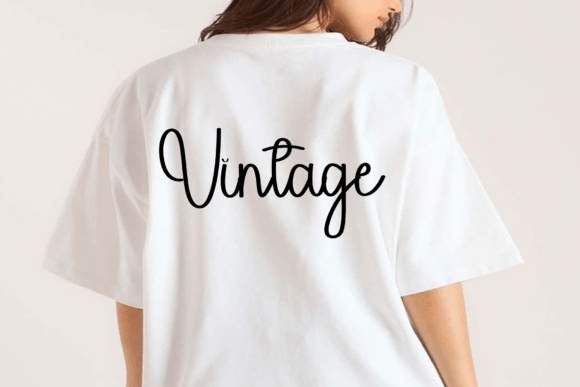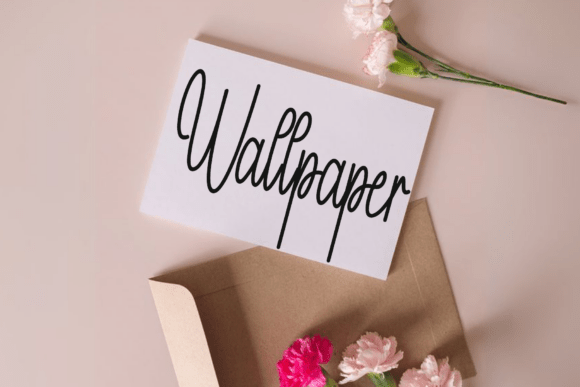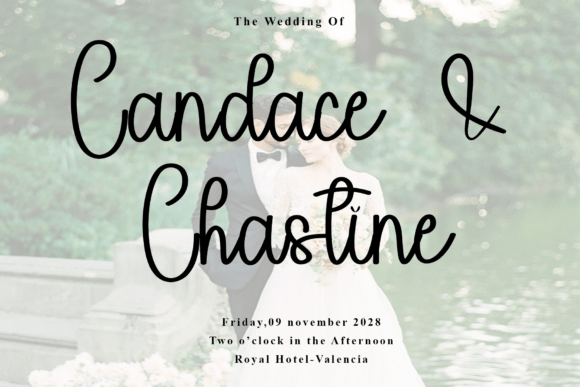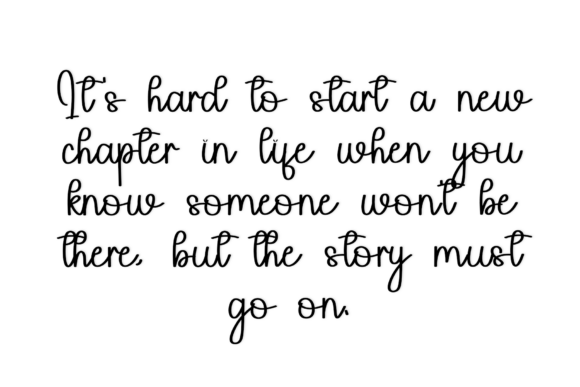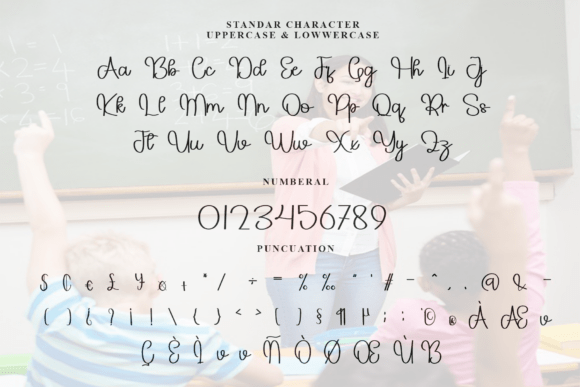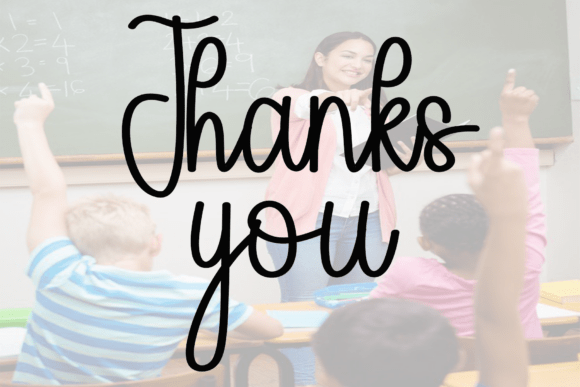
Discover the Charm of Beaching Font: Elevate Your Designs with a Personal Touch
In the world of typography, fonts play a crucial role in conveying the tone and personality of a design. If you’re looking for a font that exudes warmth, approachability, and a touch of casual elegance, look no further than Beaching Font. This beautiful, handwritten font is perfect for designers and crafters seeking to add a personal and friendly touch to their projects.
The Essence of Beaching Font
Beaching Font is a casual, handwritten typeface that embodies the spirit of authentic handwriting with a modern twist. Its smooth strokes, natural curves, and easy-flowing letterforms create a sense of effortless style, making it ideal for a wide range of design applications. Whether you’re working on quotes, invitations, branding, or social media posts, Beaching Font is sure to bring a touch of warmth and personality to your designs.
Key Features of Beaching Font
- Smooth Strokes: Beaching Font features smooth, fluid strokes that give it a natural, handwritten feel.
- Natural Curves: The font’s curves and letterforms are designed to mimic the imperfections and uniqueness of handwriting, adding a touch of authenticity to your designs.
- Easy-Flowing Letterforms: The font’s letterforms are carefully crafted to flow effortlessly into one another, creating a sense of continuity and harmony.
- Modern and Approachable: Beaching Font strikes the perfect balance between modernity and approachability, making it suitable for a wide range of design projects.
Why Choose Beaching Font?
So, why should you choose Beaching Font for your next design project? Here are just a few reasons:
- Readability: Beaching Font is designed to be highly readable, even at smaller sizes, making it perfect for body text, captions, and quotes.
- Versatility: The font’s effortless style and versatile character make it suitable for a wide range of design applications, from formal to informal.
- Personality: Beaching Font adds a personal and friendly touch to any design, helping to establish a connection with your audience.
Design Applications for Beaching Font
Beaching Font is an incredibly versatile typeface that can be used in a variety of design applications, including:
- Quotes: Add a touch of elegance and sophistication to your quotes with Beaching Font.
- Invitations: Create beautiful, eye-catching invitations for weddings, parties, and other special events.
- Branding: Use Beaching Font to create a unique and memorable brand identity for your business or organization.
- Social Media Posts: Add a personal touch to your social media posts and help them stand out in a crowded feed.
Tips for Using Beaching Font
Here are a few tips for getting the most out of Beaching Font:
- Experiment with Sizes: Beaching Font looks great at a variety of sizes, so don’t be afraid to experiment and find the perfect size for your design.
- Play with Colors: The font’s effortless style pairs well with a wide range of colors, so try experimenting with different color schemes to find the one that works best for your design.
- Mix and Match: Beaching Font pairs well with a variety of other fonts, so don’t be afraid to mix and match to create a unique and interesting design.
In conclusion, Beaching Font is a beautiful, handwritten typeface that is sure to elevate your designs with its personal and friendly touch. With its smooth strokes, natural curves, and easy-flowing letterforms, it’s the perfect choice for designers and crafters seeking to add a touch of warmth and personality to their projects. So why wait? Download Beaching Font today and start creating stunning designs that capture the essence of authentic handwriting with a modern twist.